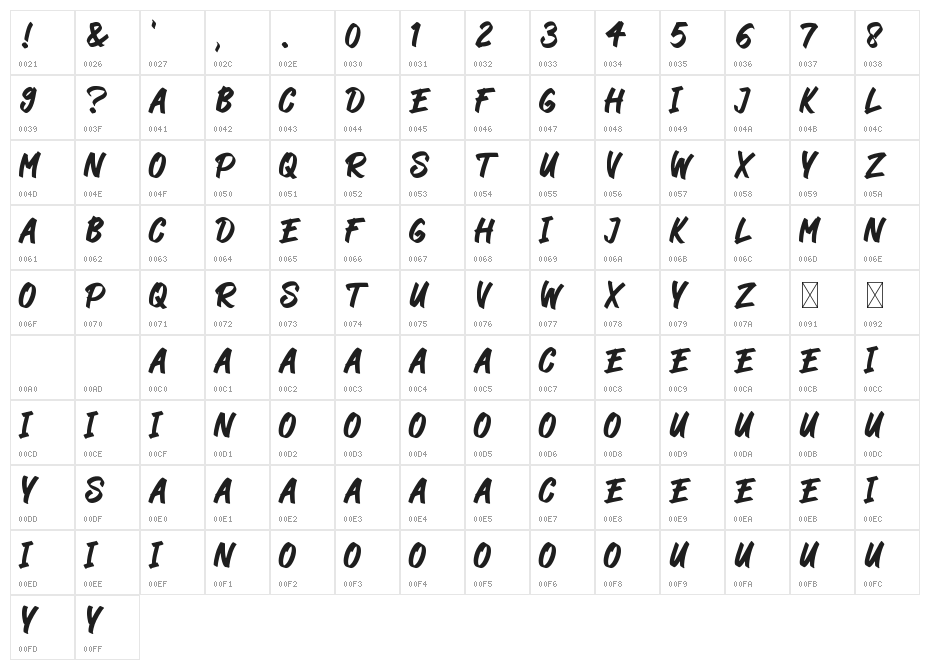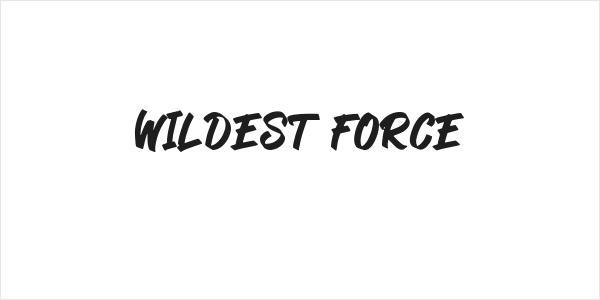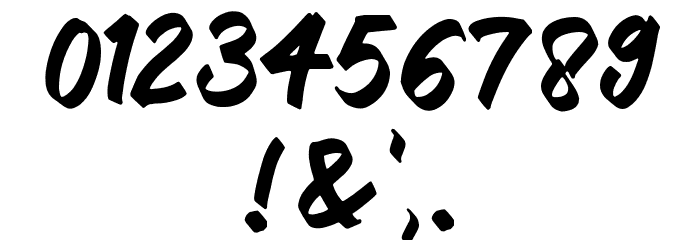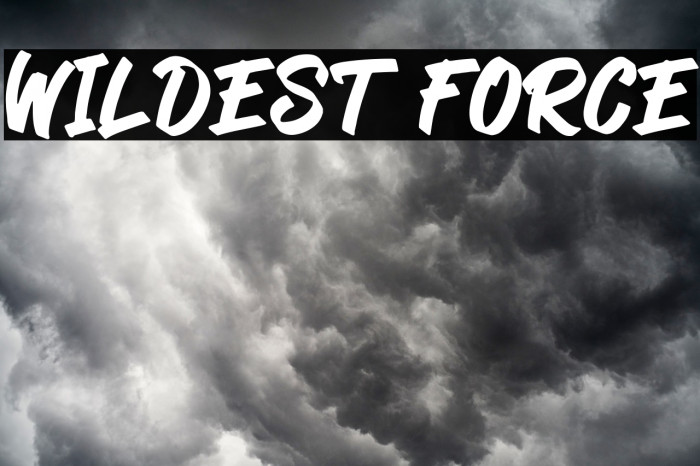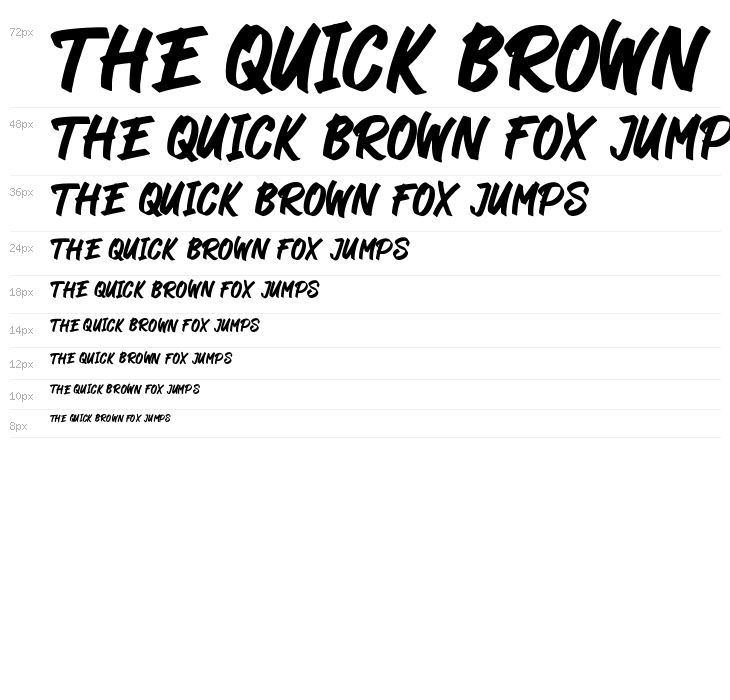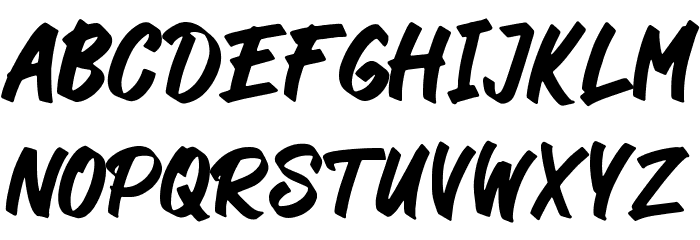
Wildest Force Font
Wildest Force Description
This font exhibits a bold and dynamic style, characterized by its thick, brush-like strokes that convey a sense of energy and movement. The letters are slightly slanted, adding a casual and informal touch, reminiscent of hand-painted signage. Each character is distinct, with a playful yet assertive appearance, making it ideal for attention-grabbing designs. The numbers and special characters maintain the same lively aesthetic, ensuring consistency across all elements. This font's unique style is perfect for projects that require a bold statement.